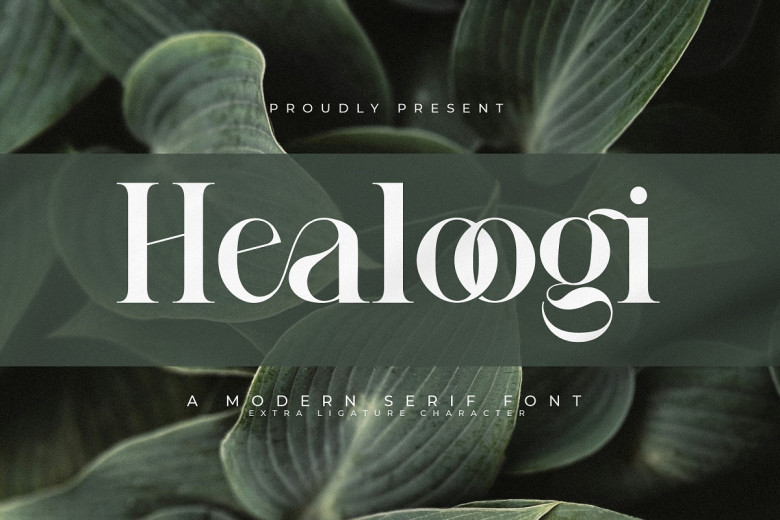
Healoogi Font
Healoogi is a fresh and sleek serif operation, which combines harmony of straight lines with the smooth curves. This font is ideal for editorial designs, luxury brands, and web texts as its dignity compliments every design it is applied on. Select Healoogi as your go-to brand for a contemporary and stylish element in your artistic work.
Healoogi Serif Font